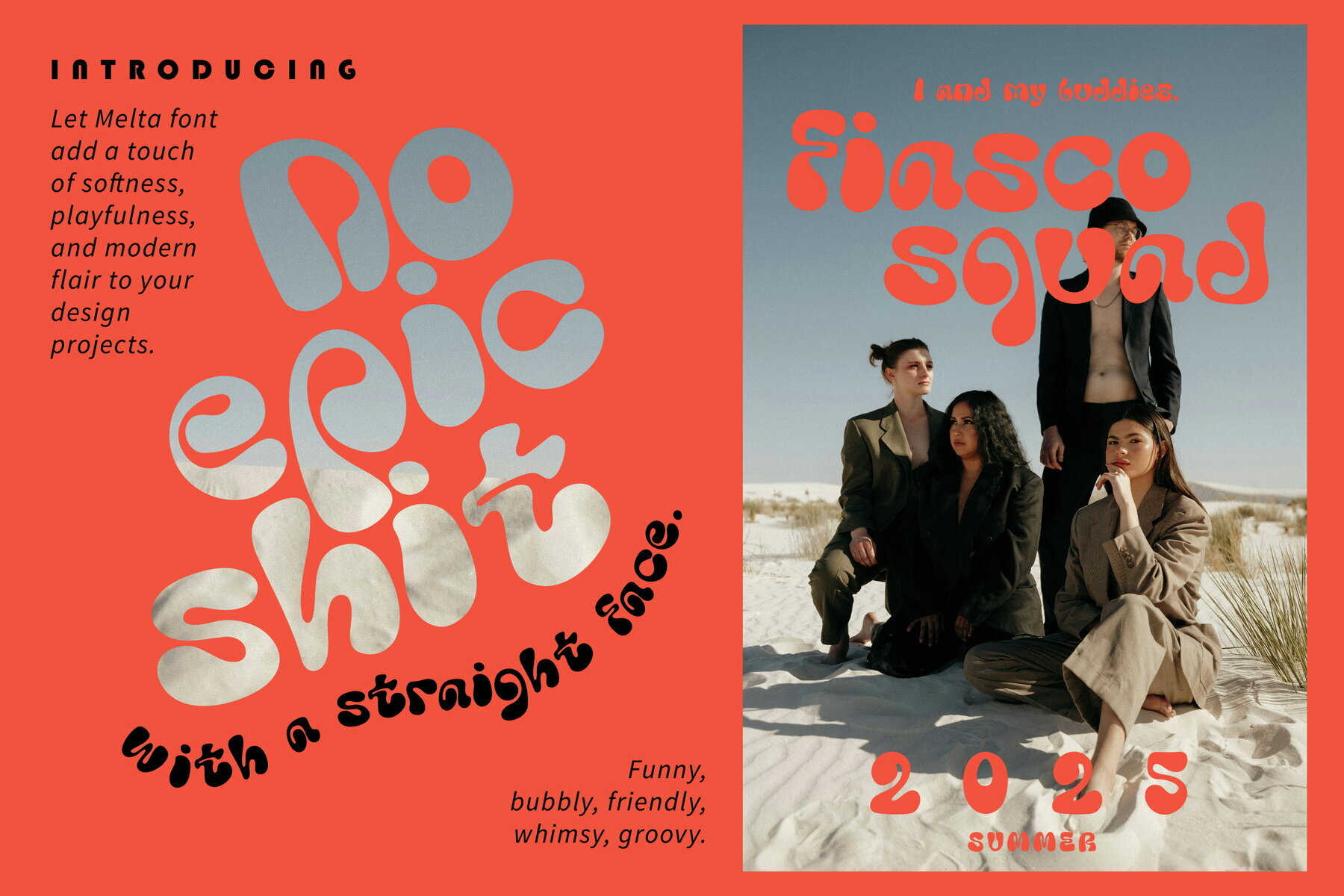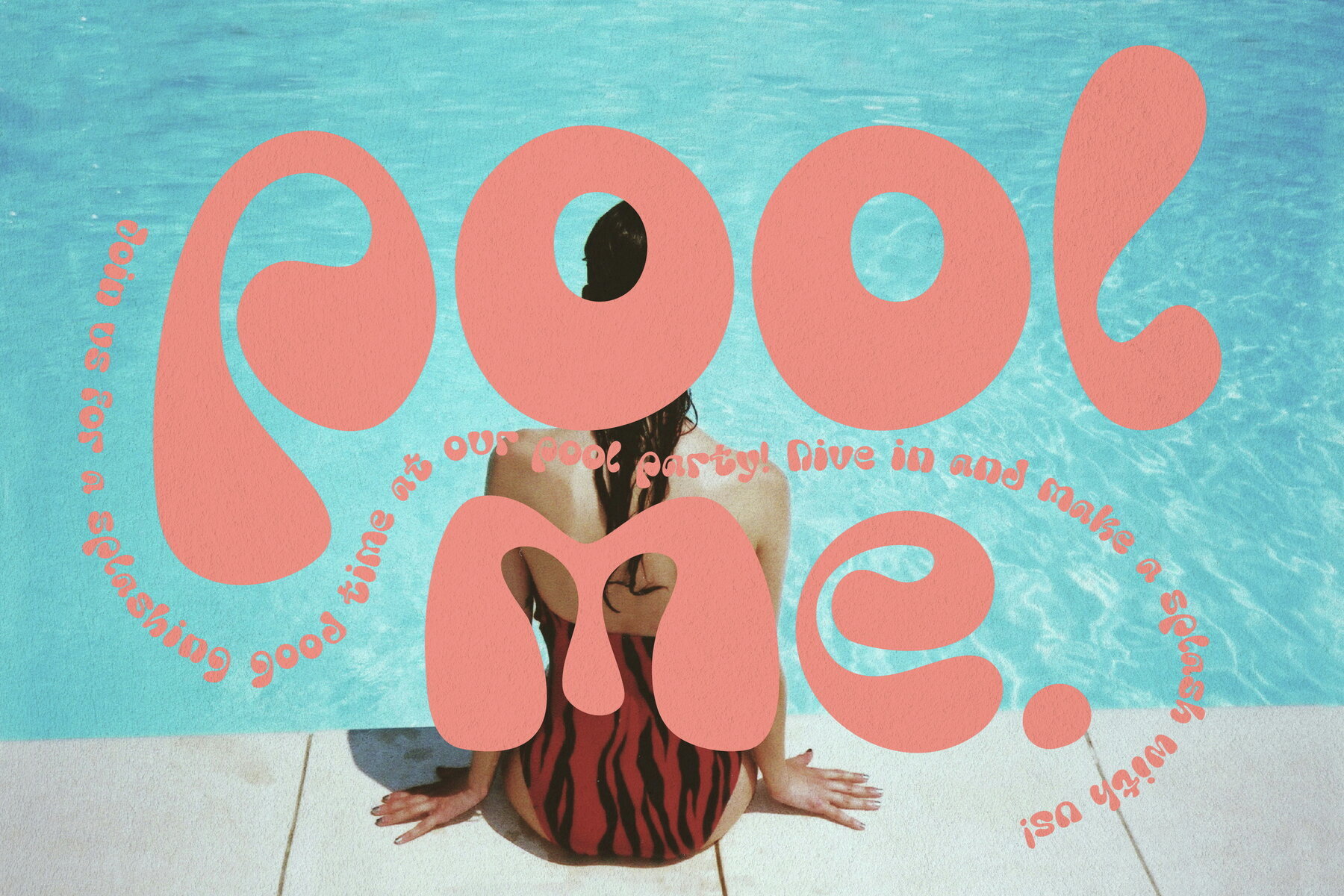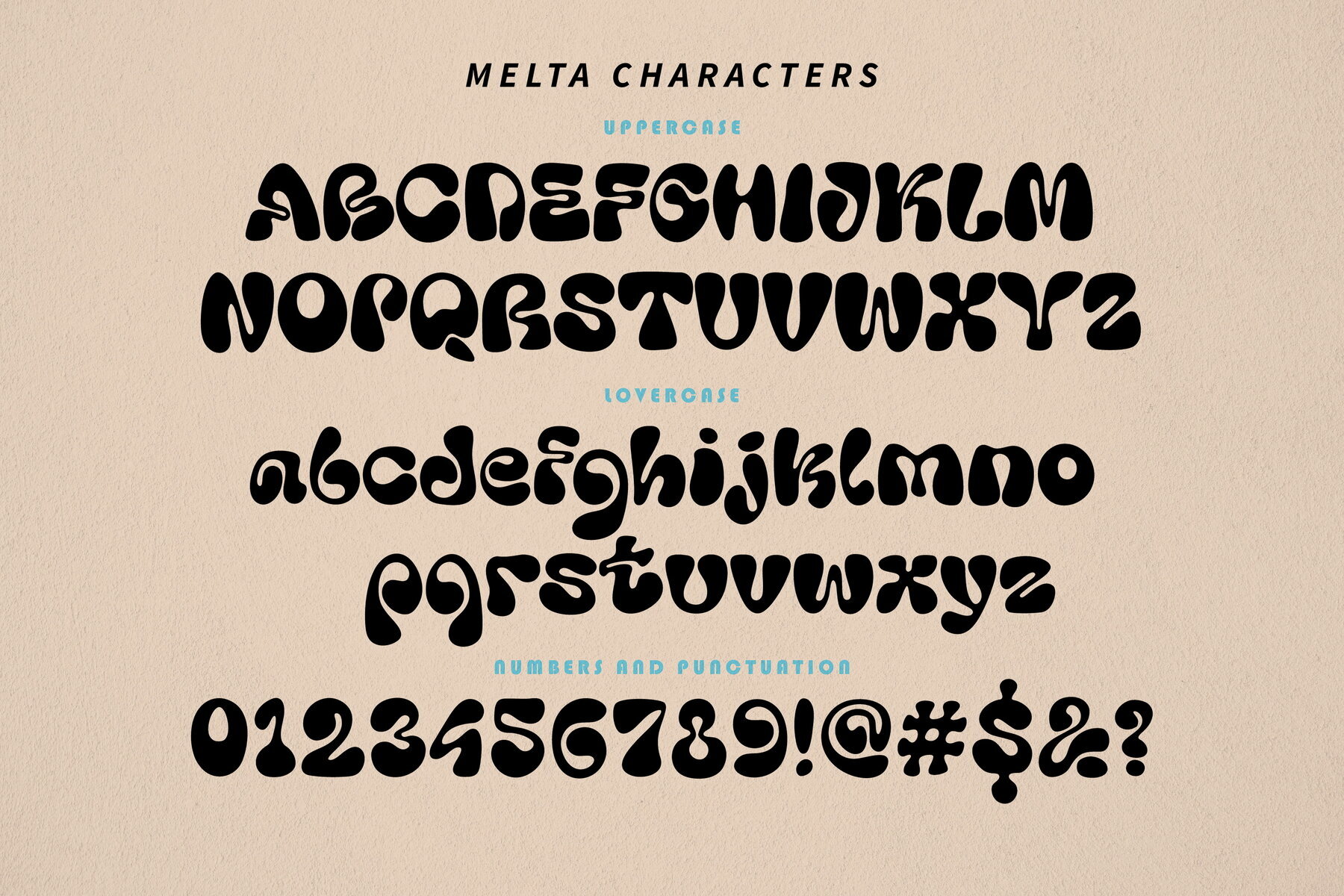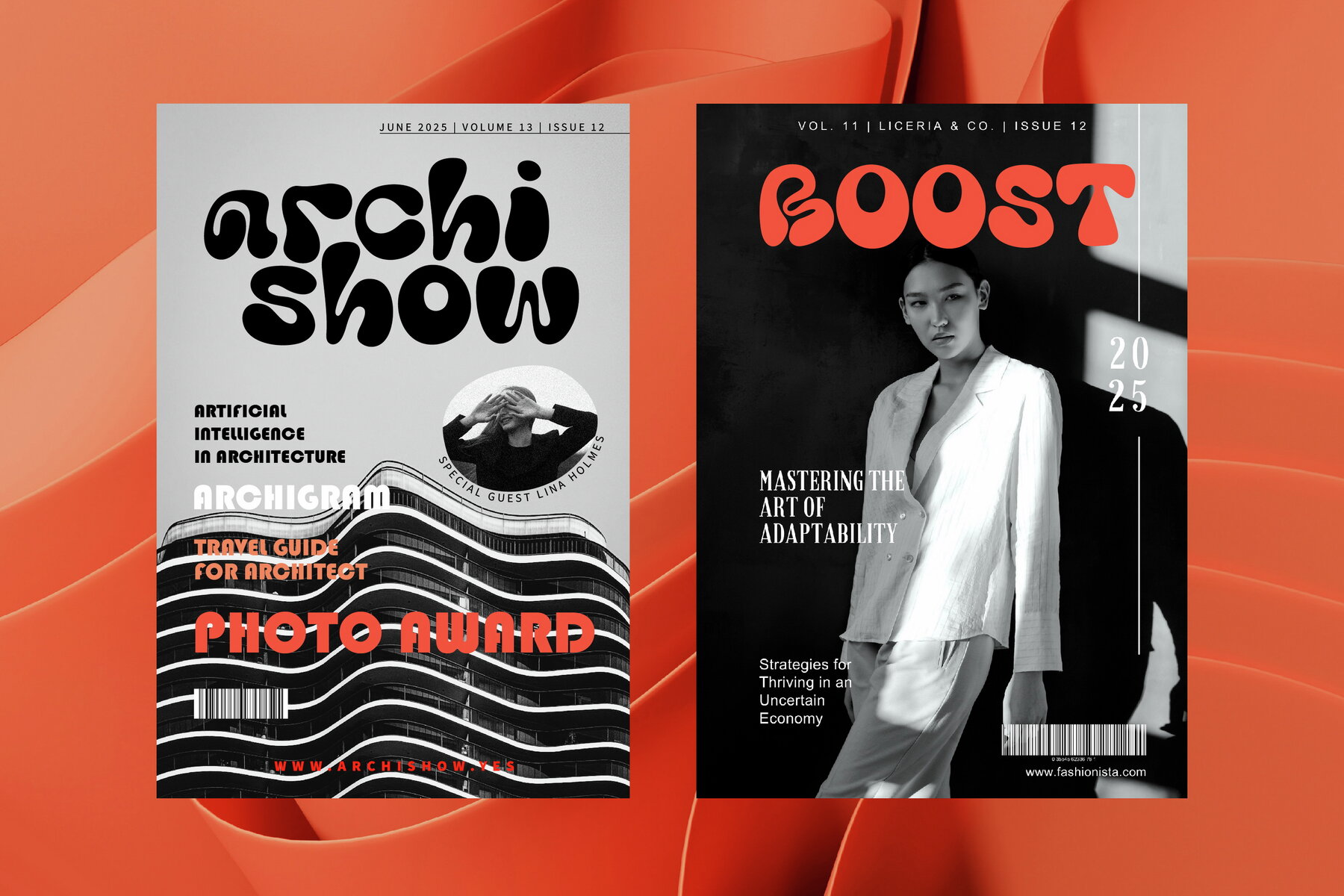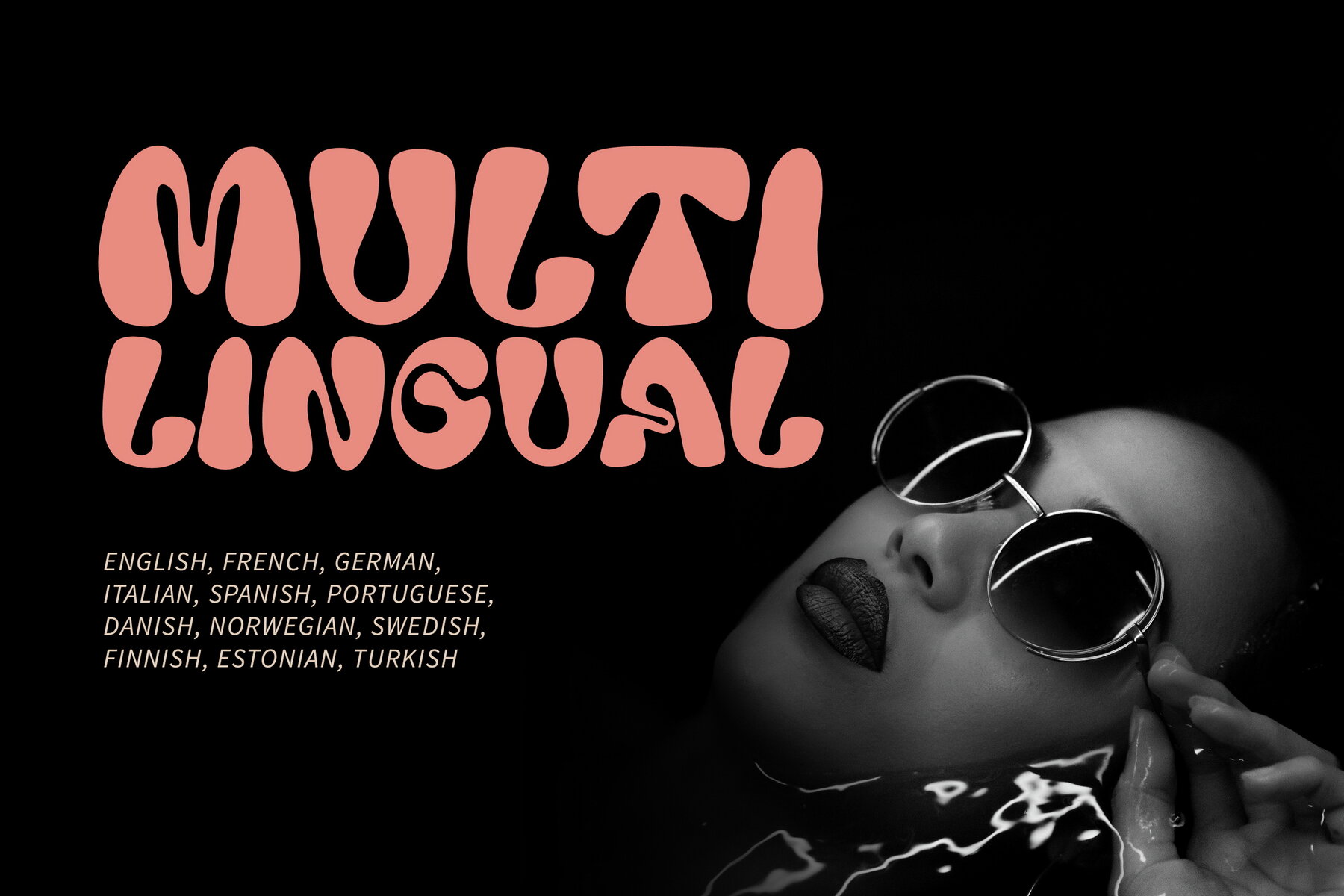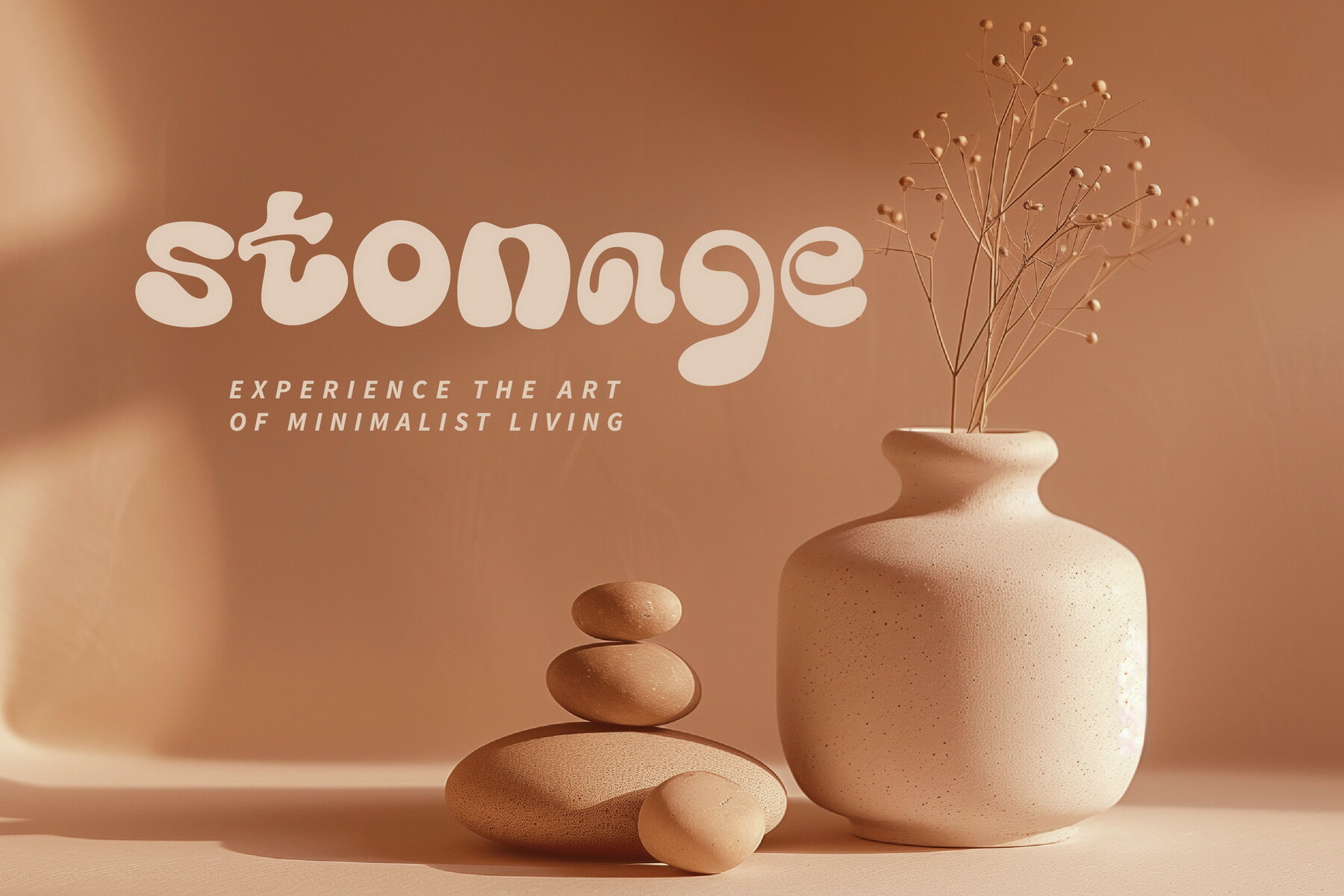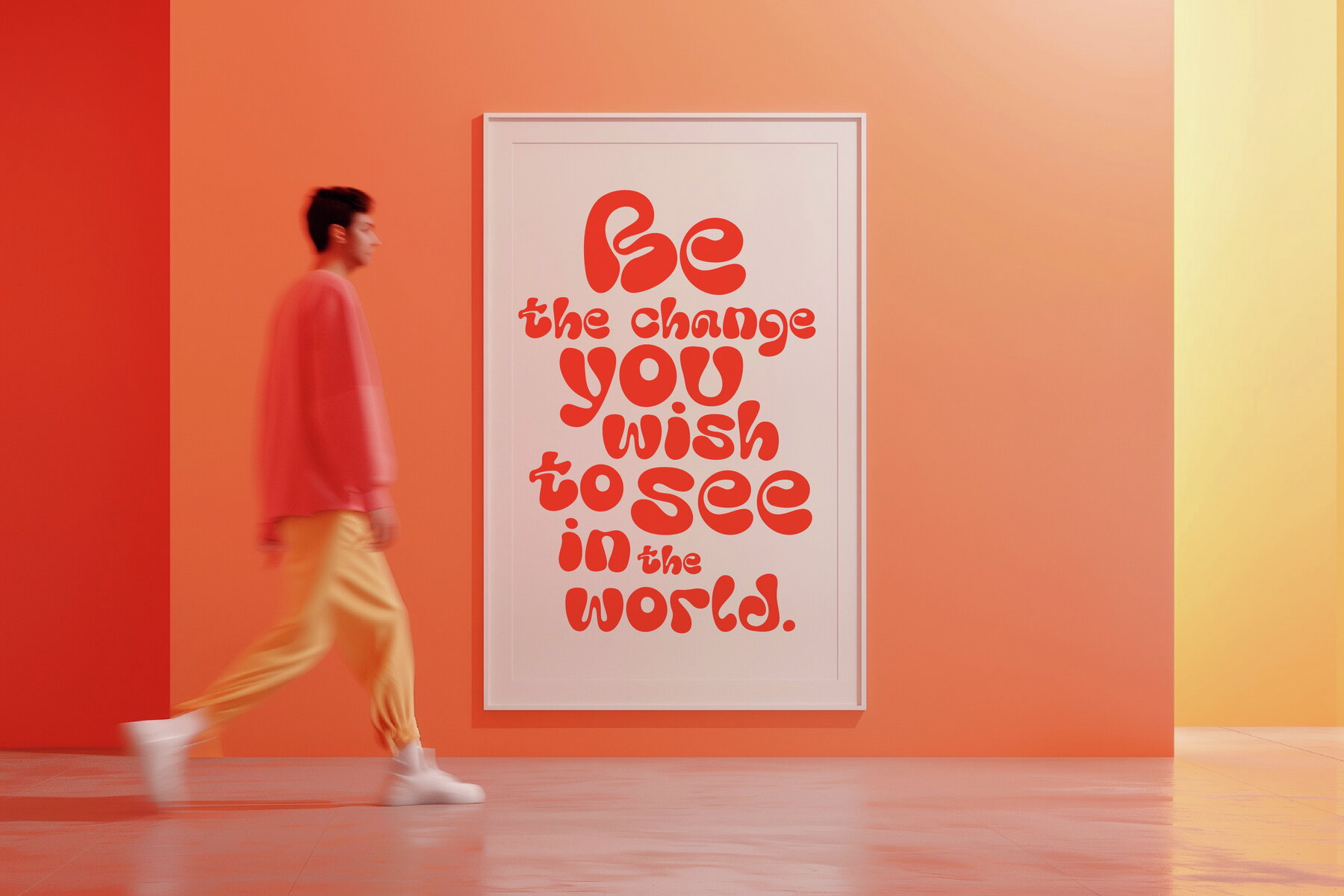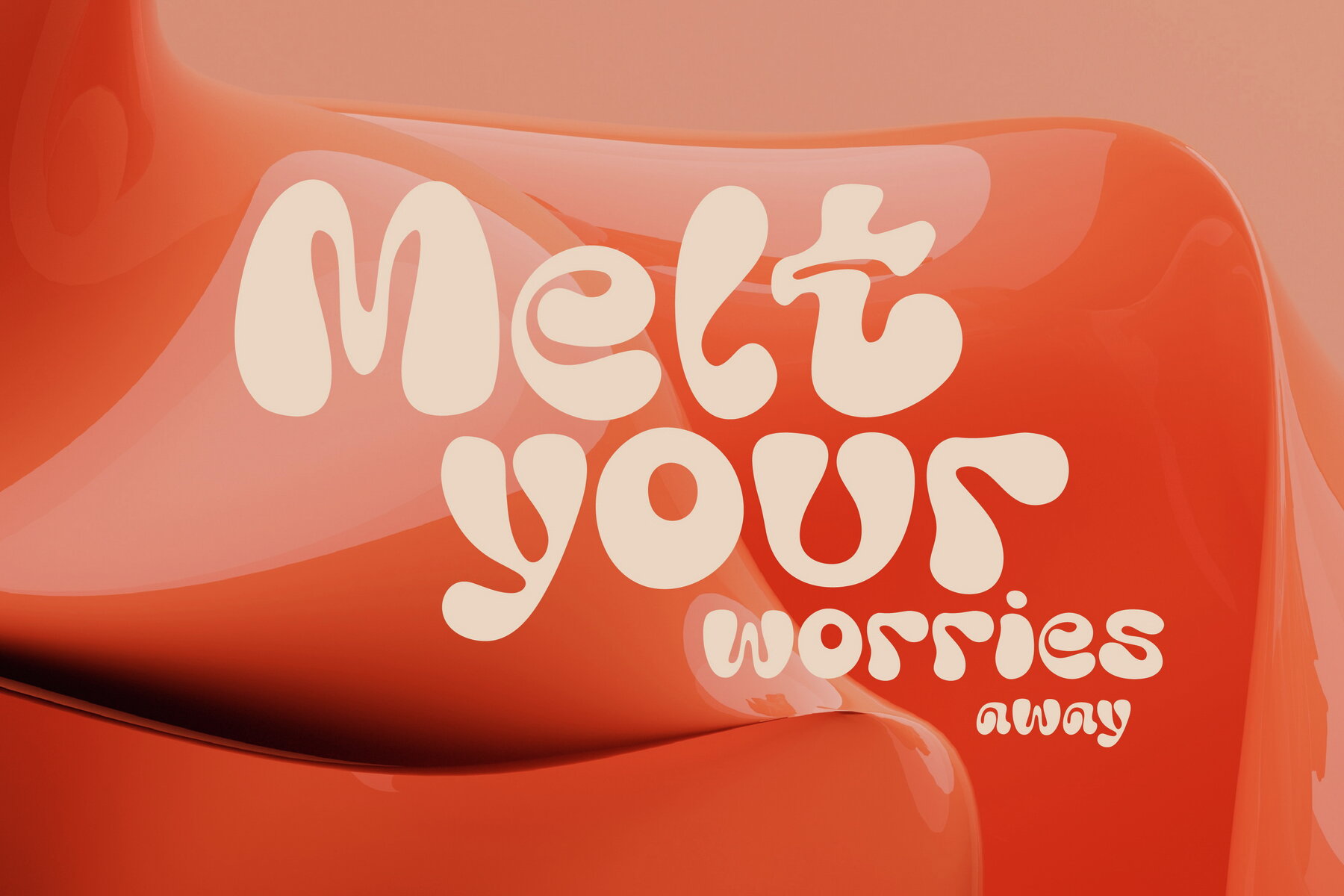
Melta Font
Melta Bubbly
Melta is the perfect blend of retro inspiration and modern sophistication. Its bold, rounded appearance seamlessly captures retro aesthetics while maintaining a contemporary charm, making it ideal for modern posters, magazine headlines, and logos.
Featuring smooth curves and a strong visual presence, Melta brings a touch of nostalgia and current allure to your projects. It supports the most popular Latin-based languages, ensuring versatility across various design needs. Make a lasting impression with Melta's captivating design.